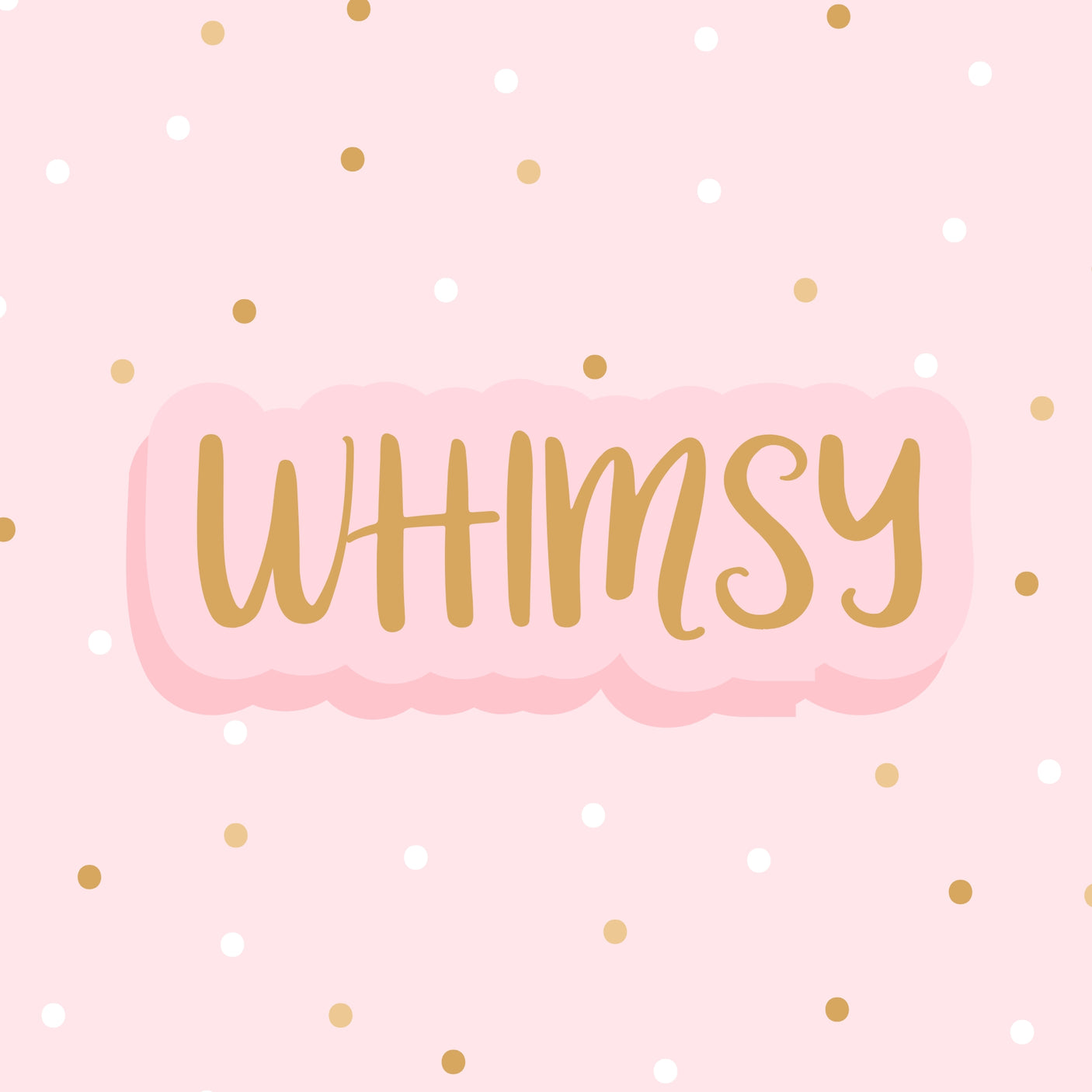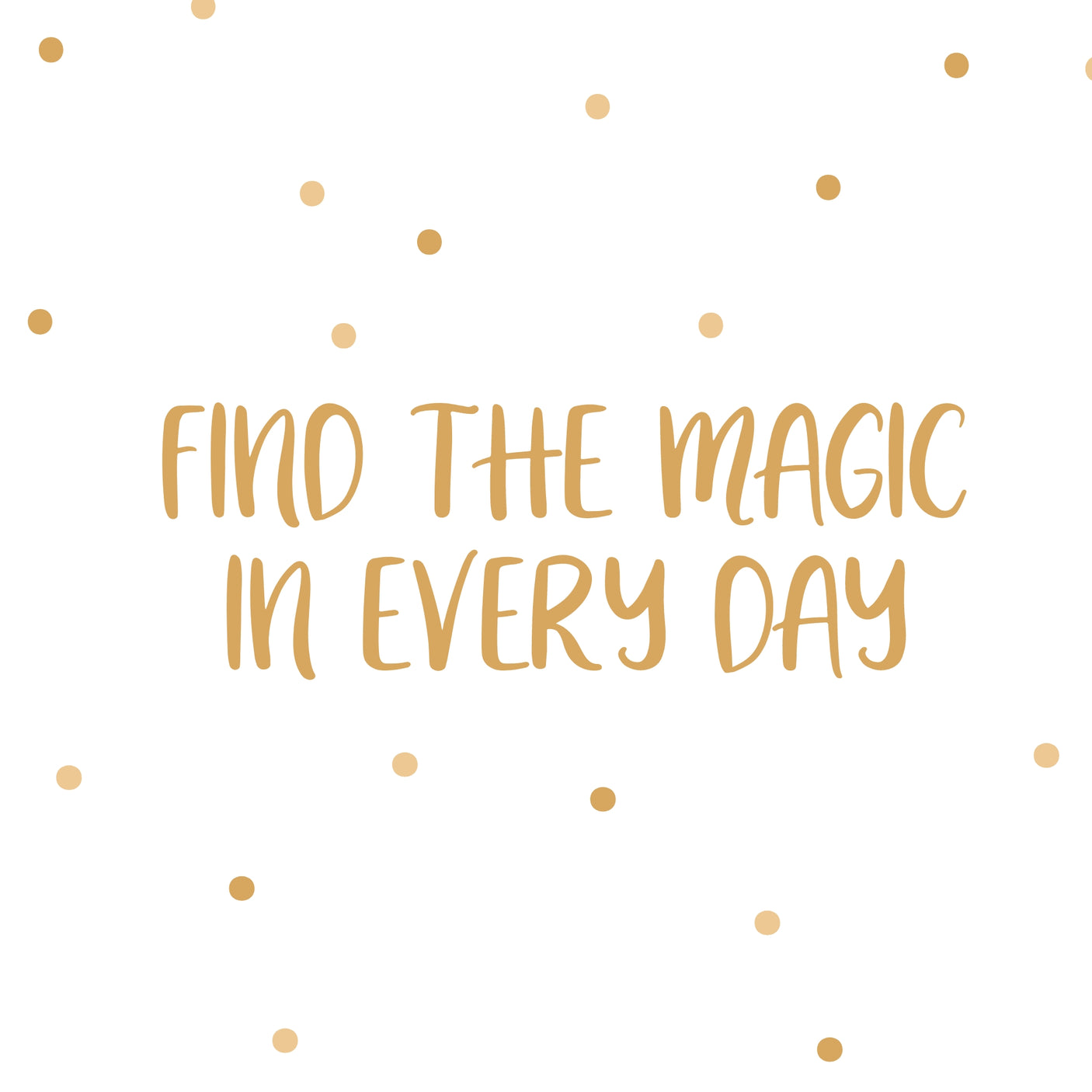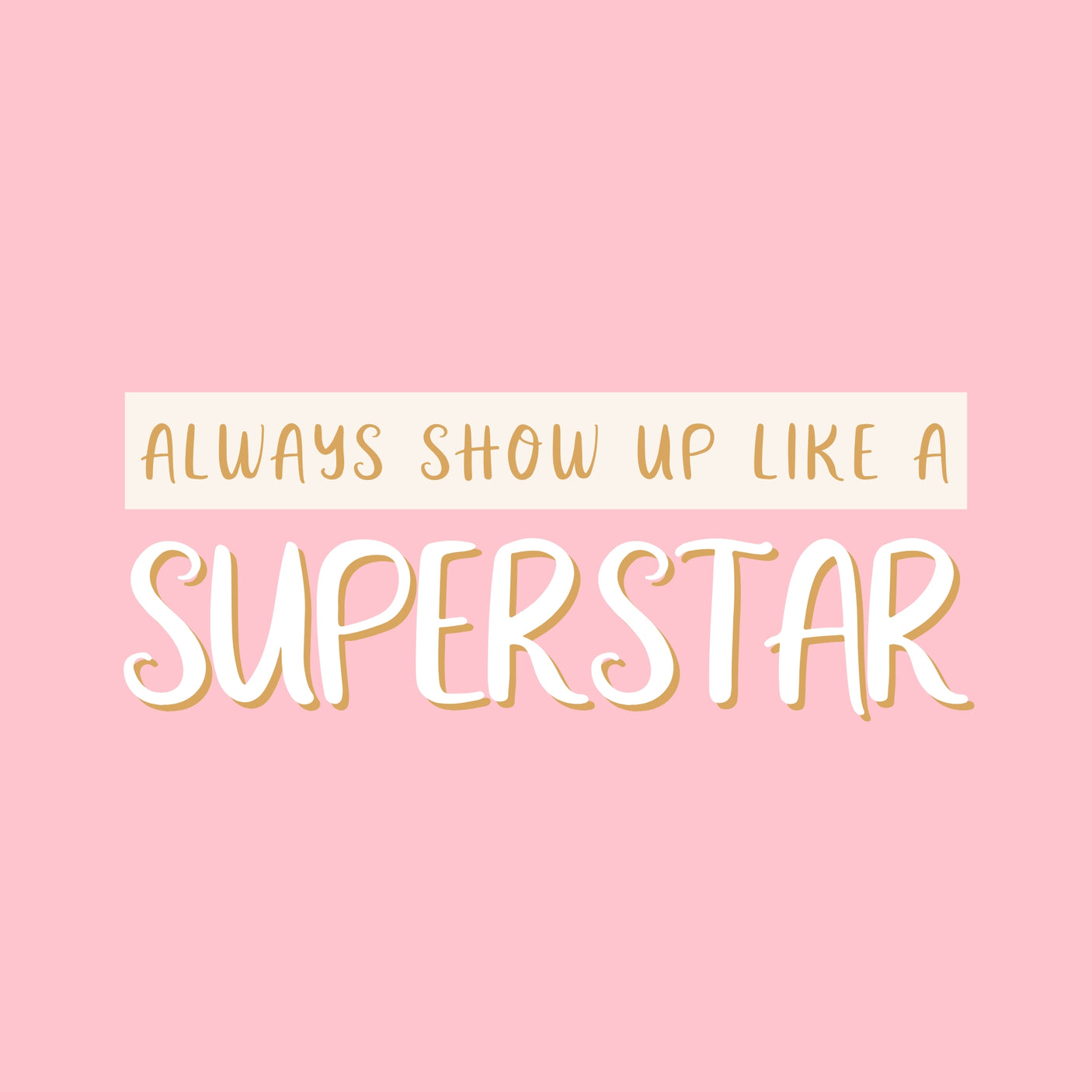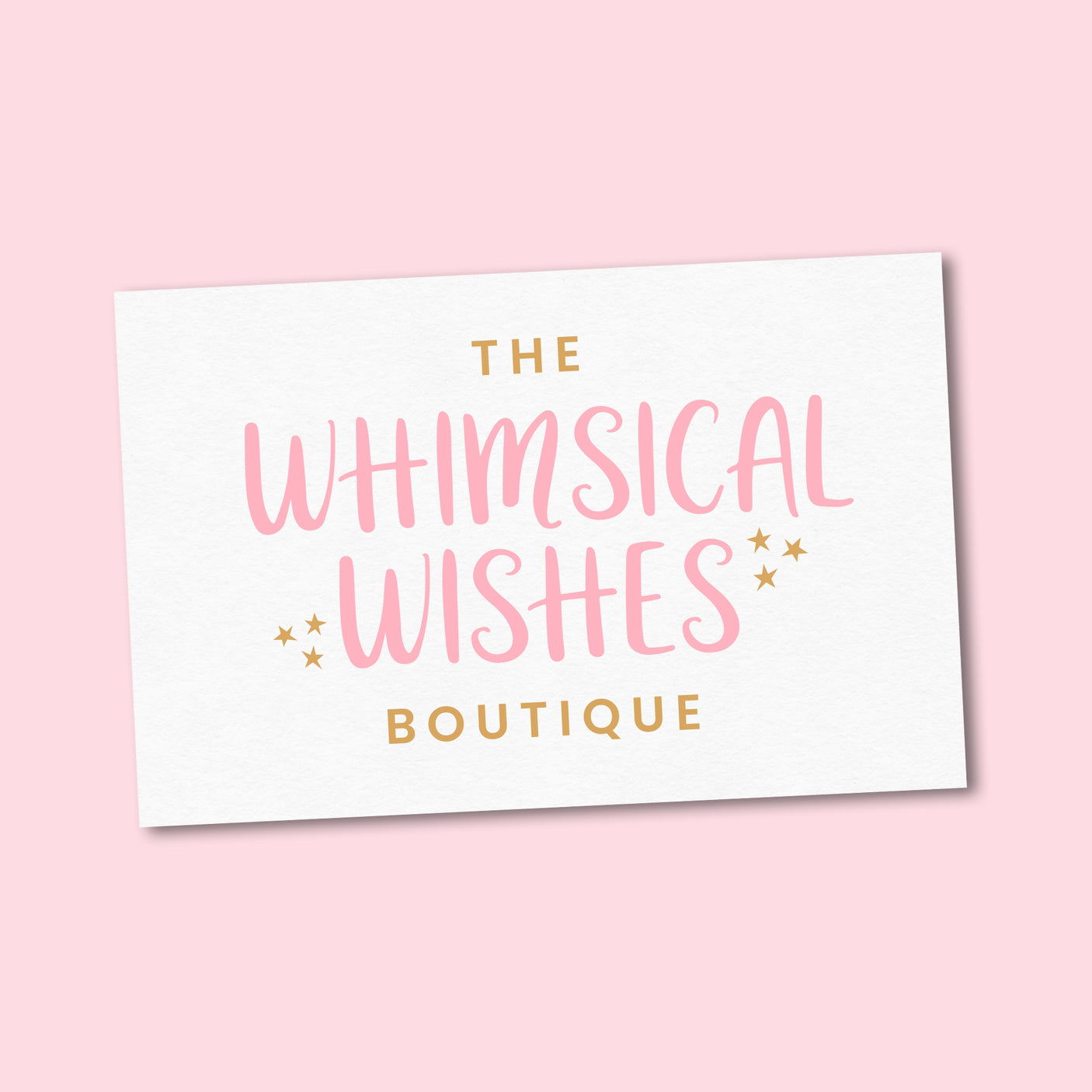
Whimsy Font
Add a touch of charm and magic to your designs with Whimsy, the perfect hand-lettered font for all your creative projects! With its playful curves and delightful, bouncy style, this font is ideal for adding a fun and friendly feel to your work. Whether you're crafting invitations, designing cute prints, or creating standout social media graphics, Whimsy brings the personality that will make your projects shine.
Perfect for:
- Invitations and cards
- Branding and logos
- Cute quotes for Instagram
- Digital stickers and SVGs
- T-shirts, mugs, and other products
Bring your designs to life with Whimsy! Its sweet, curly letters and unique style make it a must-have for any designer or crafter who loves whimsical, happy vibes.